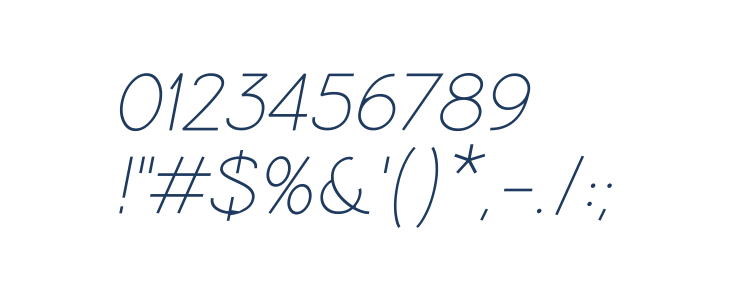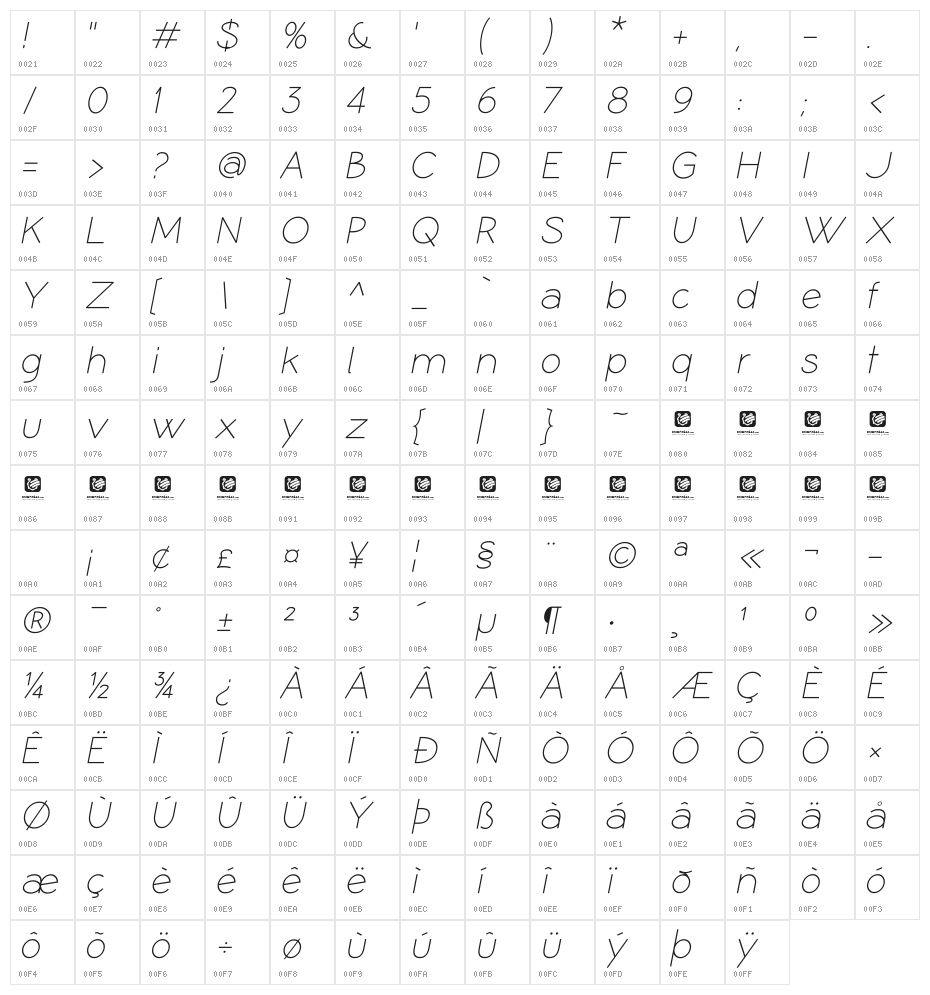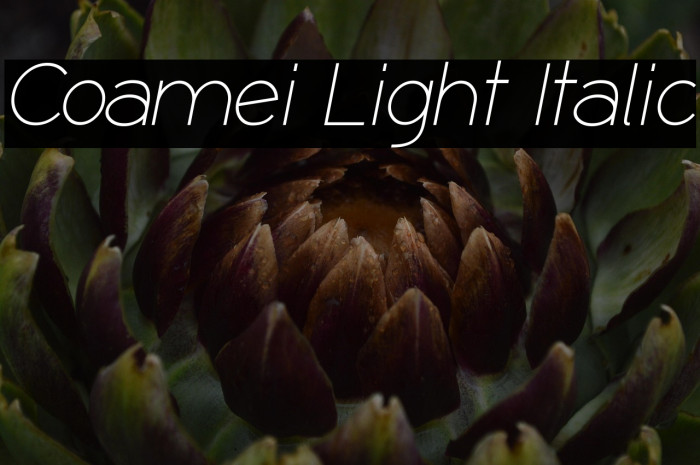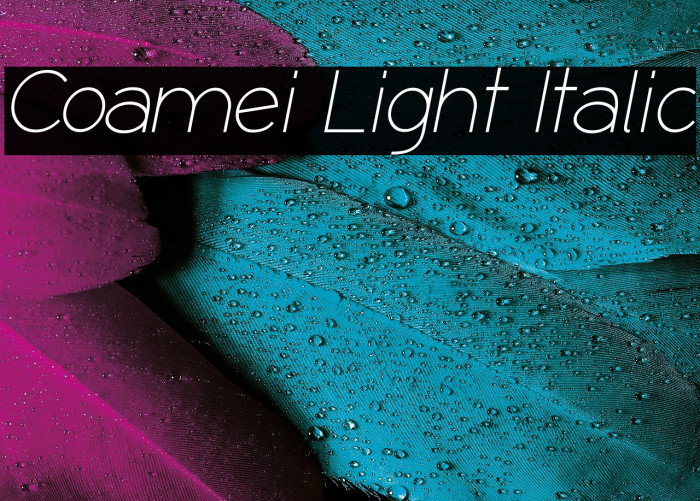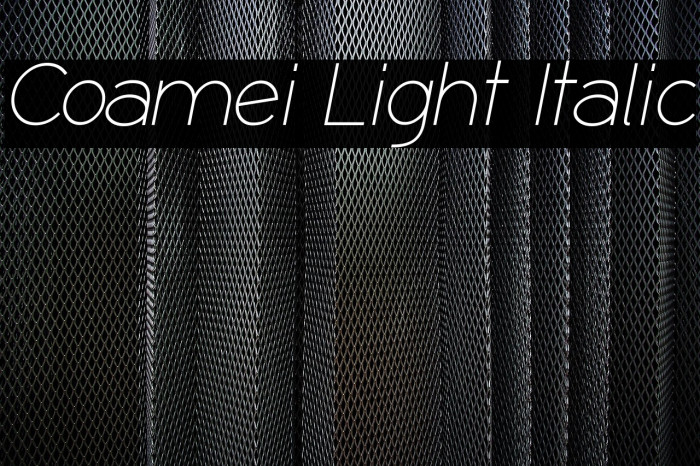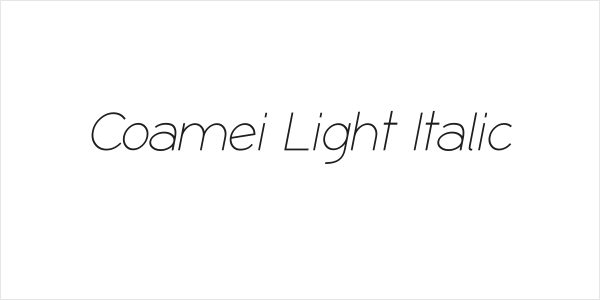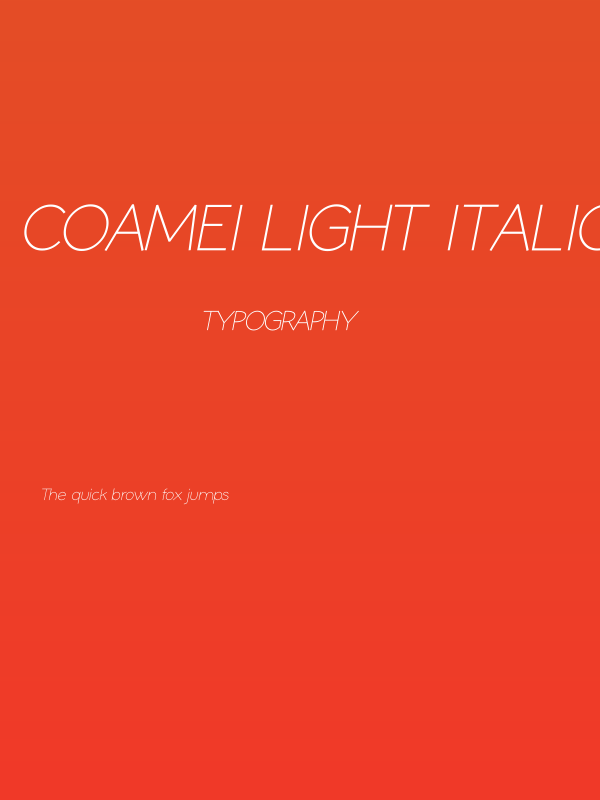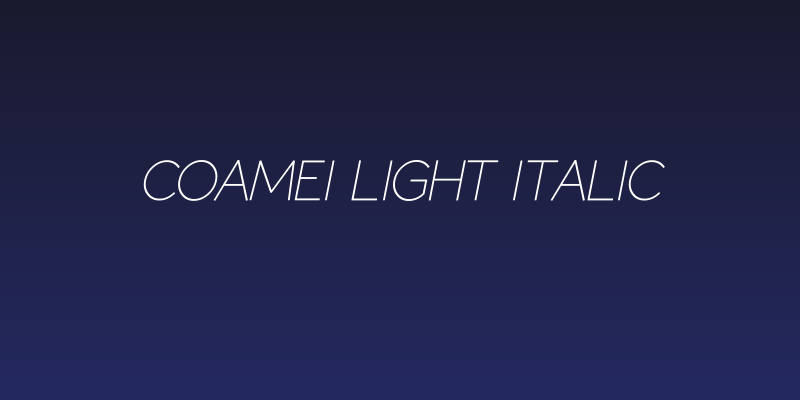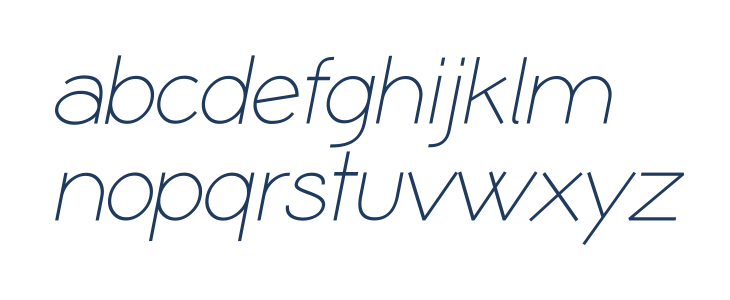
Coamei Light Italic Font
Coamei Light Italic Description
This font features a sleek and modern design with a light and airy feel. The italic style adds a sense of elegance and fluidity, making it ideal for projects that require a touch of sophistication. The characters are well-proportioned, with a consistent stroke width that maintains readability while adding a stylish flair. The font includes a full set of uppercase and lowercase letters, numerals, and a variety of special characters, ensuring versatility for various design needs. Its clean lines and subtle curves make it suitable for both digital and print media.
Proposed ProjectsIdeal for fashion magazines, elegant branding, modern websites, and stylish invitations.